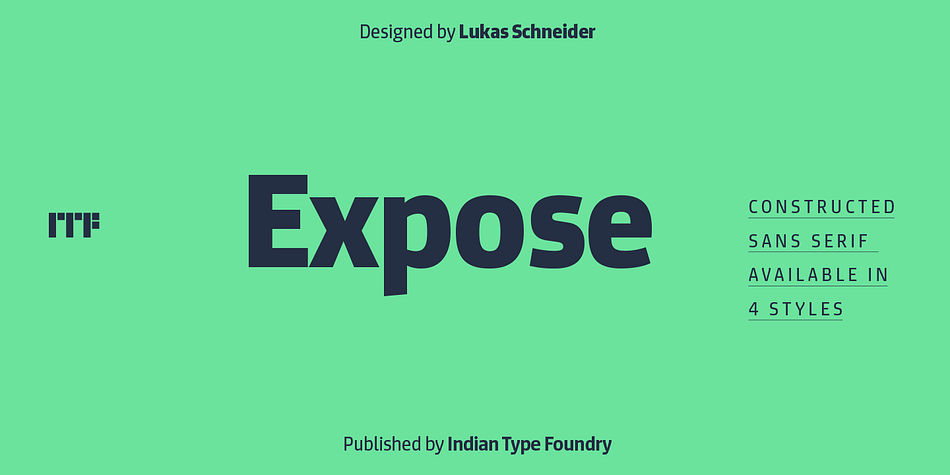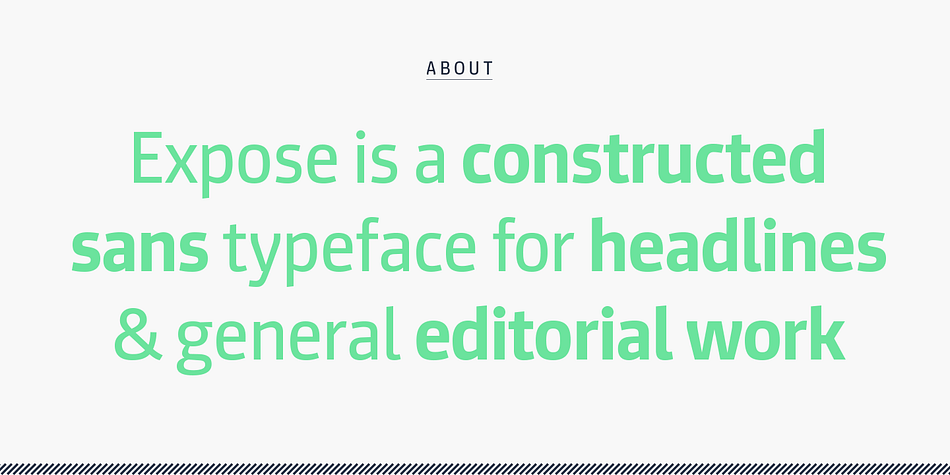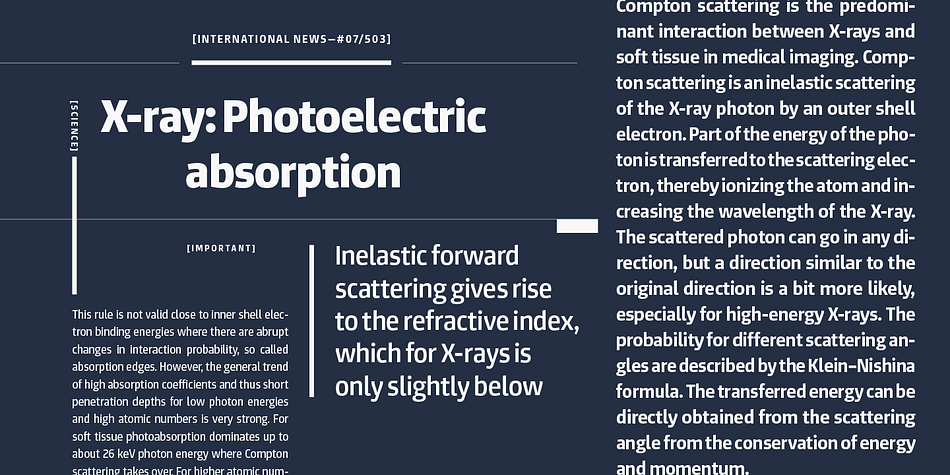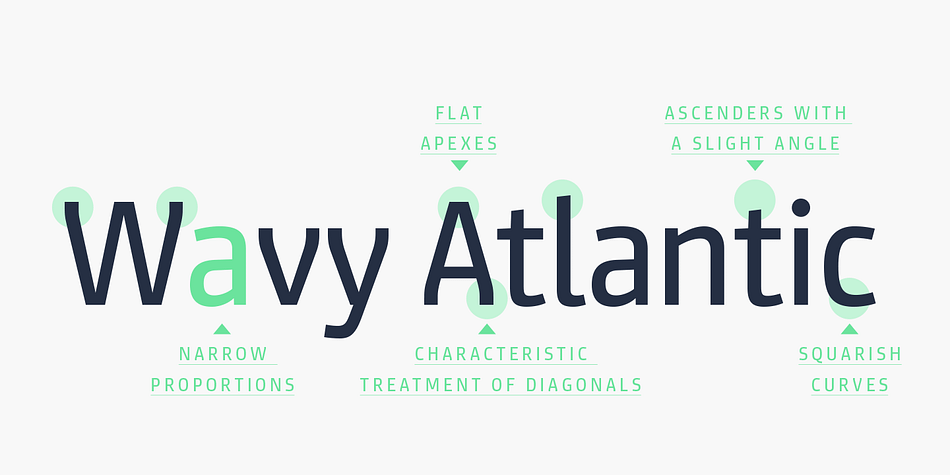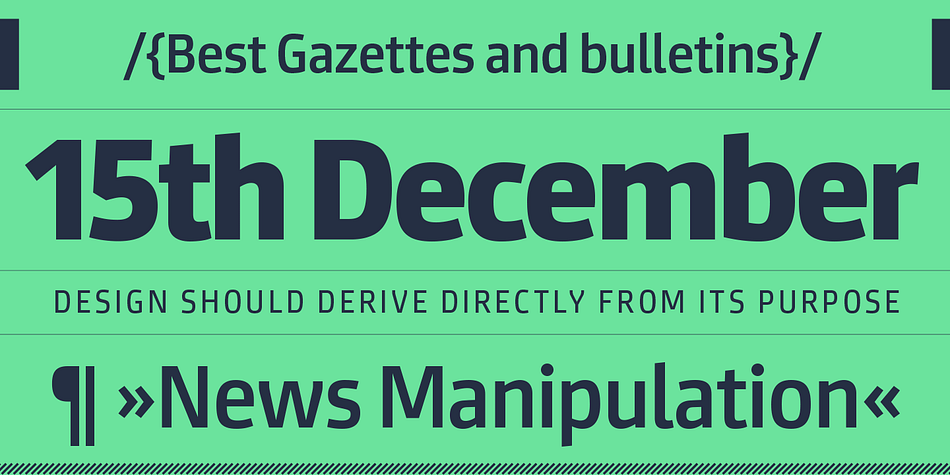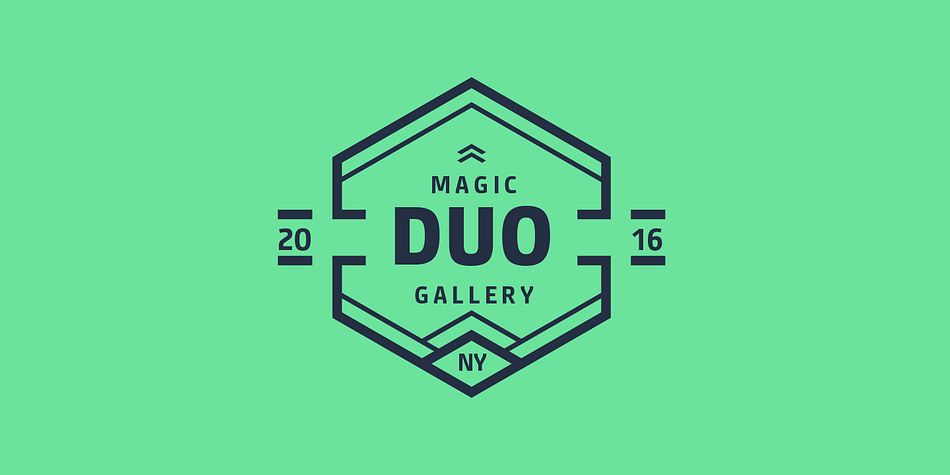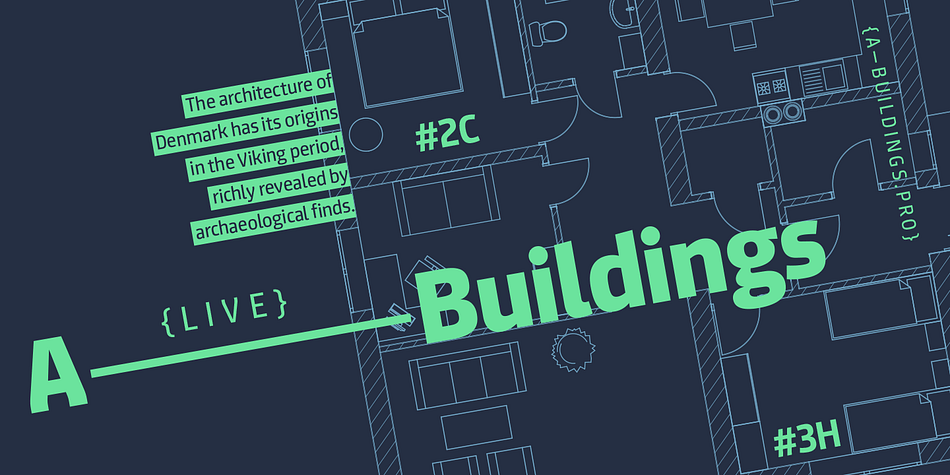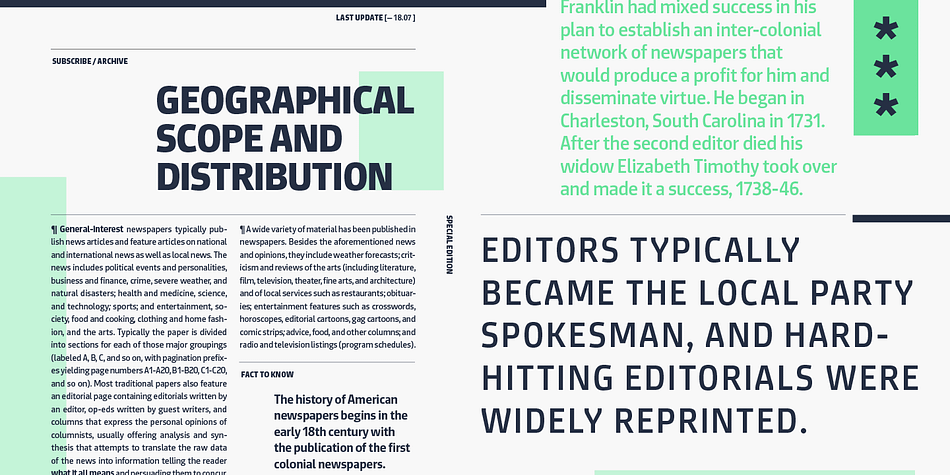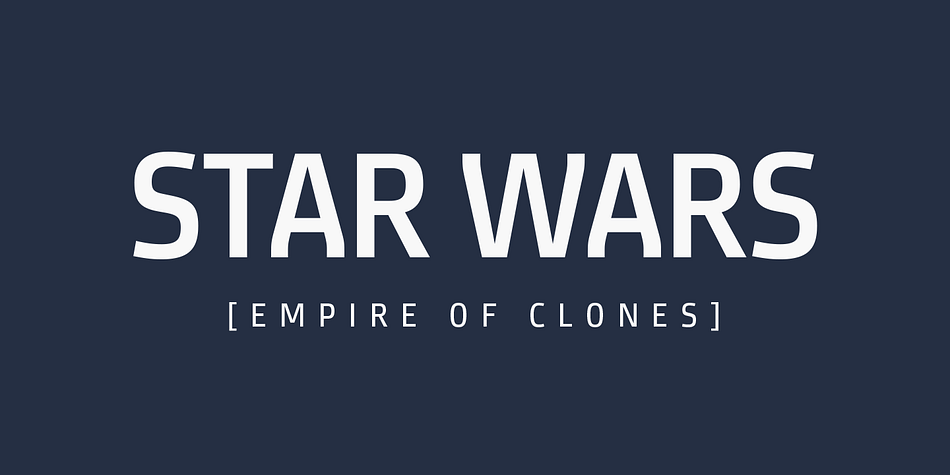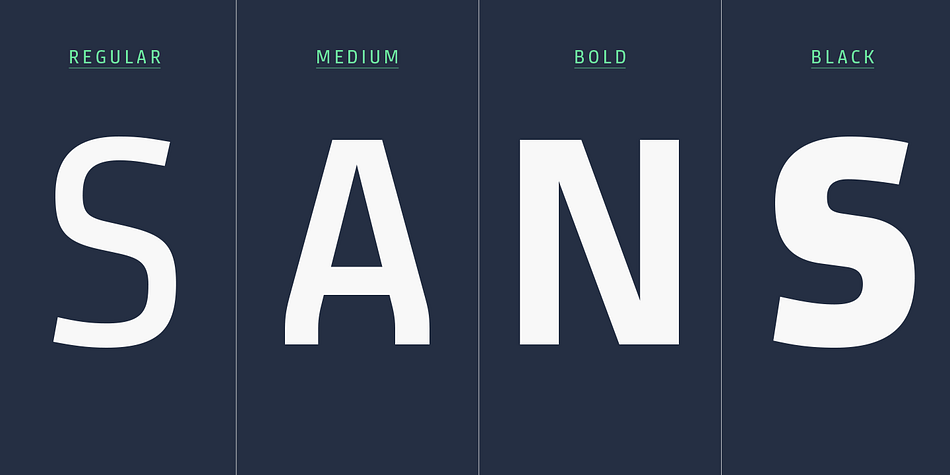
Designed by Lukas Schneider, Expose is a sans serif font family. This typeface has four styles and was published by Indian Type Foundry.
Expose is a constructed sans typeface for headlines and general editorial work. It looks like it has taken letterforms drafted by engineers and crossed these with avant-garde remixes of typewriter faces. As a family, Expose includes four fonts, ranging in weight from Regular through Black. Newspaper headlines need to be compact, and the counters inside of Expose’s letters help the design achieve this by being almost squared off. Something similar happens with the diagonal strokes, too: several diagonals change direction towards one end of their stroke. While Expose’s design is proportionally-spaced, its design does feel somewhat fixed-width – especially in its capital letters. Unusual for a constructed-style sans, Expose’s fonts make use of the double-storied form for the ‘g’.